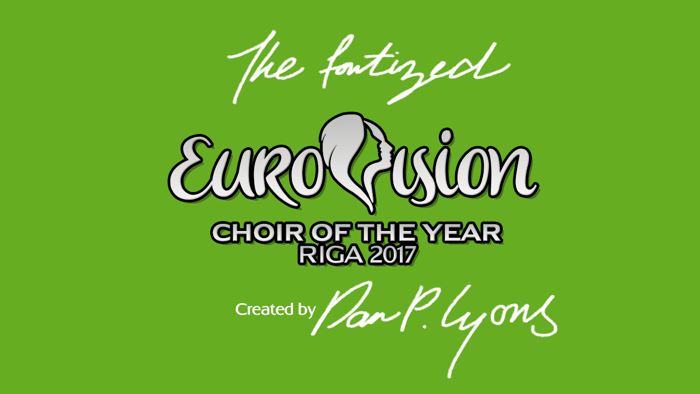
Eurovision Choir 2017 Font
I just discovered a logo, and its thing is starting in July 2017 or something.
So I decided I make a font out of that logo. I hope you Eurovision people are going to use this for Eurovision stuff or something like that.
Type In Euro*ision For The Eurovision Logo